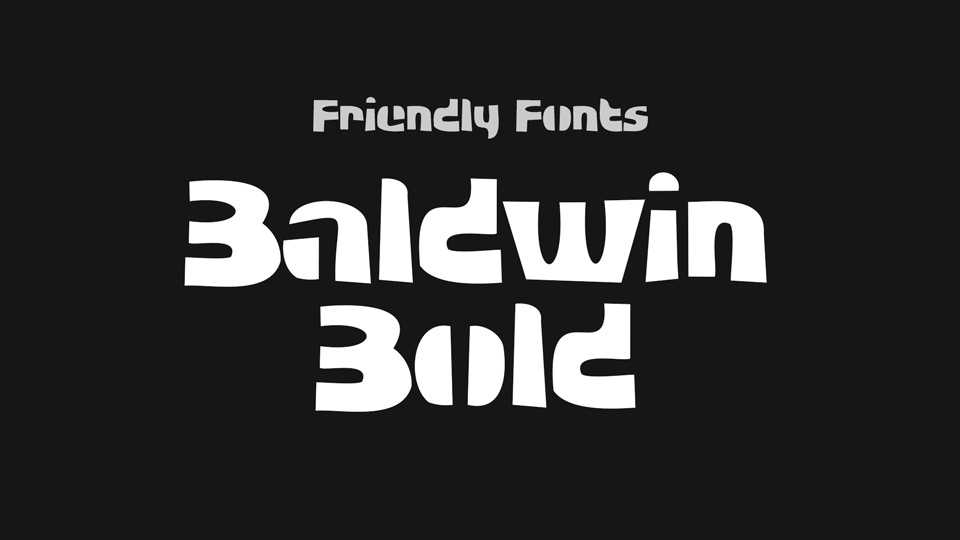
Download FF Baldwin font, a bold, chunky and fun display typeface with strong personality. FF Baldwin font is perfect for posters, headlines, album artworks and games.
Designer: Friendly Fonts